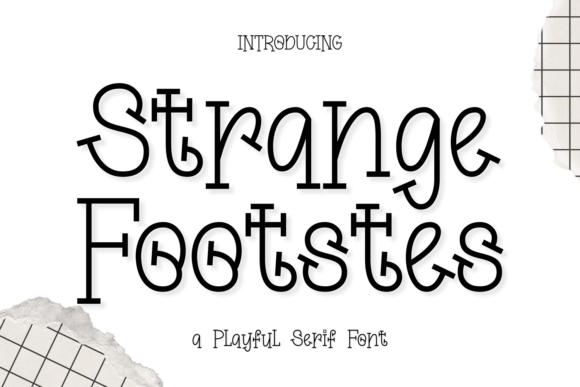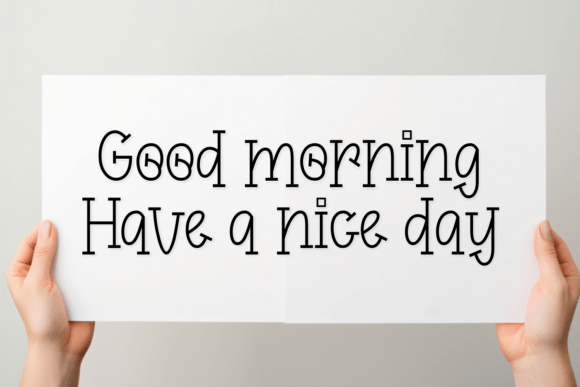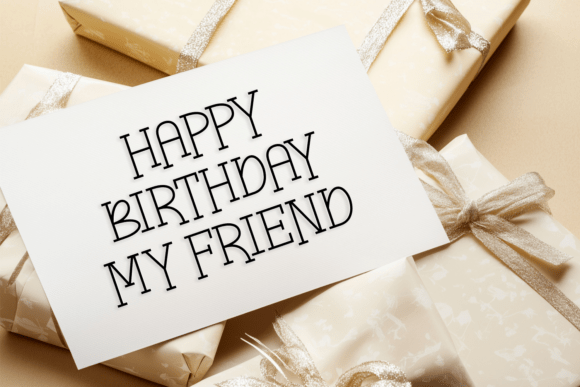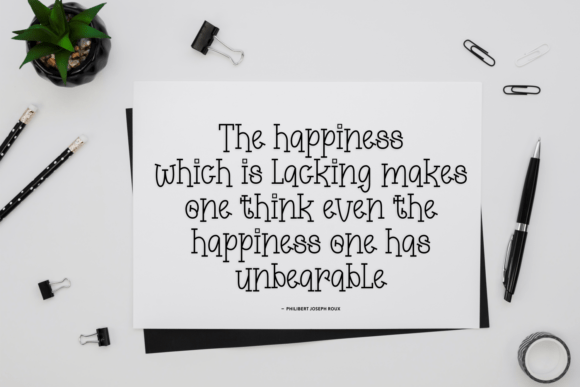
Strange Footstes Font: A Cute & Playful Serif for Cricut
About the Strange Footstes Font
Elevate your designs with Strange Footstes Font, a font that combines sophistication with readability. Embrace the eccentric with the Strange Footstes Display Fonts, an intoxicating mix of playful whimsy and jaunty elegance, served with a dash of distinctive charm. Headlining the clean and crisp design of these fonts is an undeniable hint of Eastern European influence, injecting an exotic twist to your artwork.
Whether crafting adorable kids-themed designs, laying out engaging book typography, or drafting captivating poster adverts, Strange Footstes remains an ever-reliable ally. Its versatility extends seamlessly to fashion, serving as a charming addition to branded t-shirts and logos.
With a subtle feminine undertone, it admirably doubles as a unique women’s font. Simply put, the Strange Footstes Display Font is the unrivaled muse you’ve been seeking for your creative pursuits.
Strange Footstes Font Usage Examples
Strange Footstes Font Example